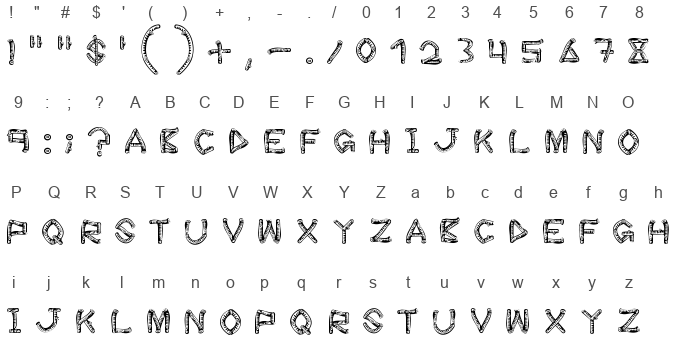
Wood Sticks is a font that seems as though it was plucked straight from a whimsical forest or a charming, rustic cabin. It's a typeface that embodies the essence of the outdoors, bringing to mind images of campfires, handmade signs, and adventures in the woods. At first glance, Wood Sticks feels both friendly and familiar, as if each letter was carefully crafted from actual twigs and branches found during a serene walk through the forest. The meticulous design suggests a labor of love, a dedication to capturing the raw and organic beauty of nature.
Each character in the Wood Sticks font maintains a unique personality, much like the trees in a forest; no two are exactly alike. Despite their differences, the letters flow together harmoniously, creating a sense of cohesion and organic unity. The font strikes a perfect balance between irregularity and readability, ensuring that it's not only captivating to look at but also perfectly functional for various design purposes. It's easy to imagine it being used in contexts like storybooks, themed signage, environmental campaigns, or any project aiming to evoke a sense of nature, adventure, and warmth.
What sets Wood Sticks apart is its ability to transport the viewer to a simpler time or place, where nature's imperfections are celebrated rather than corrected. It's a font that appeals not only to designers looking for something unique and eye-catching but also to anyone drawn to the beauty of the natural world. Wood Sticks doesn't just communicate in written words; it tells a story, inviting people to reconnect with the earth and appreciate the wonders of the wild.